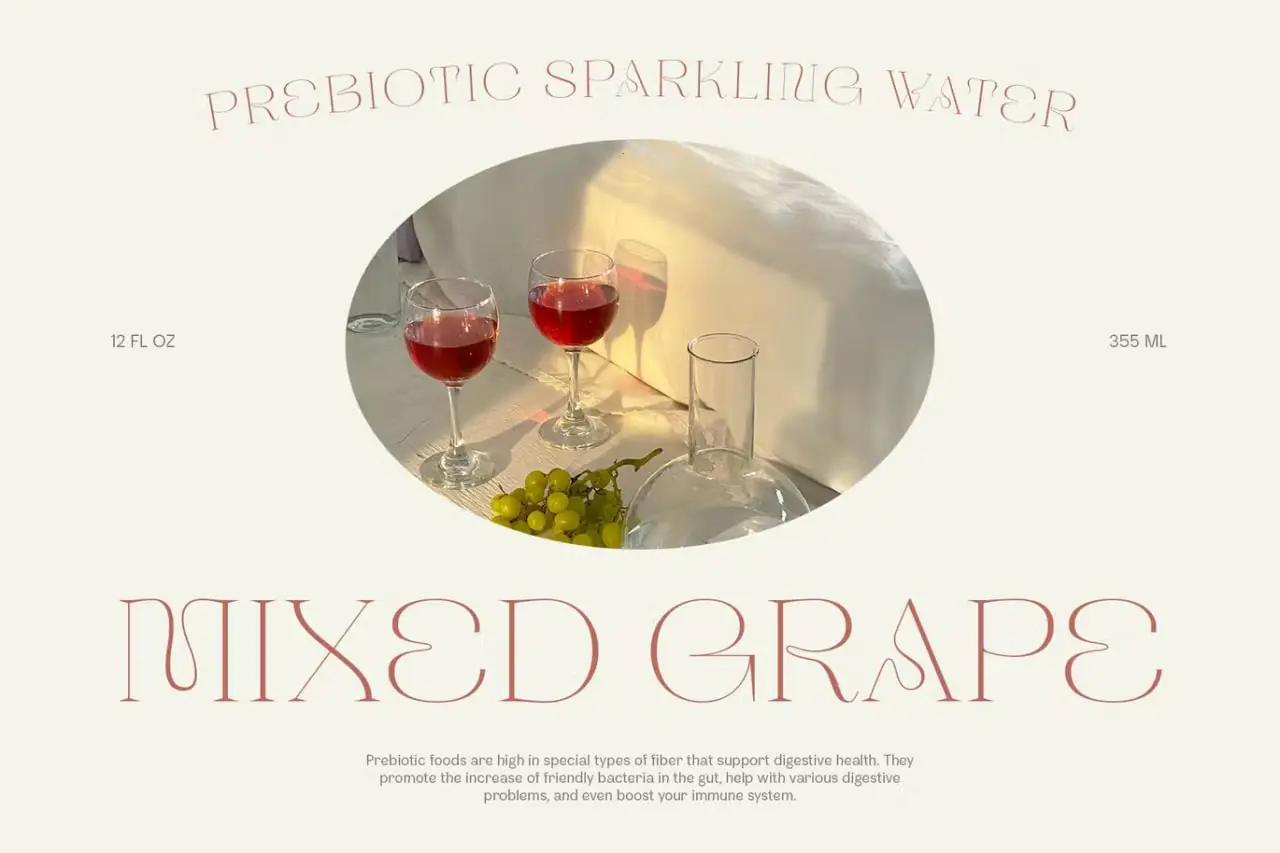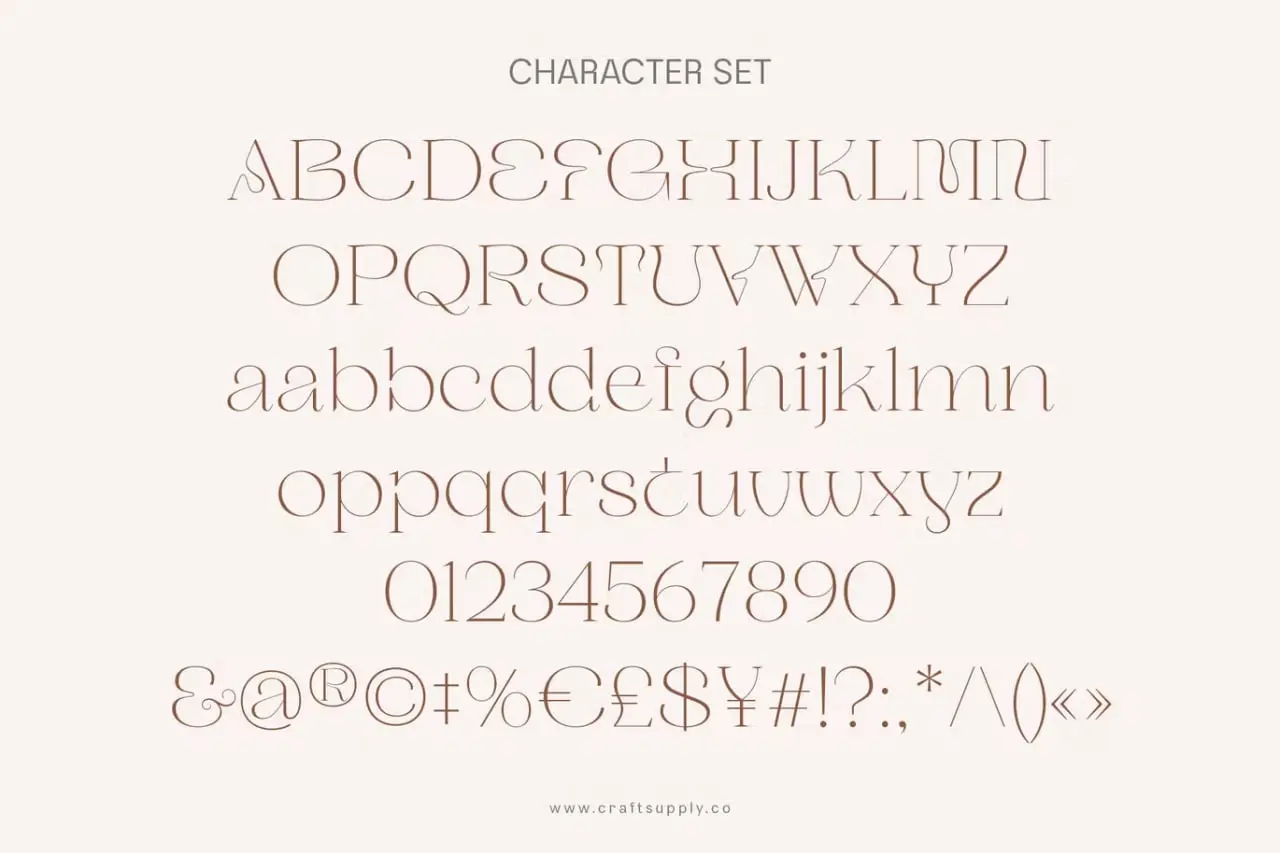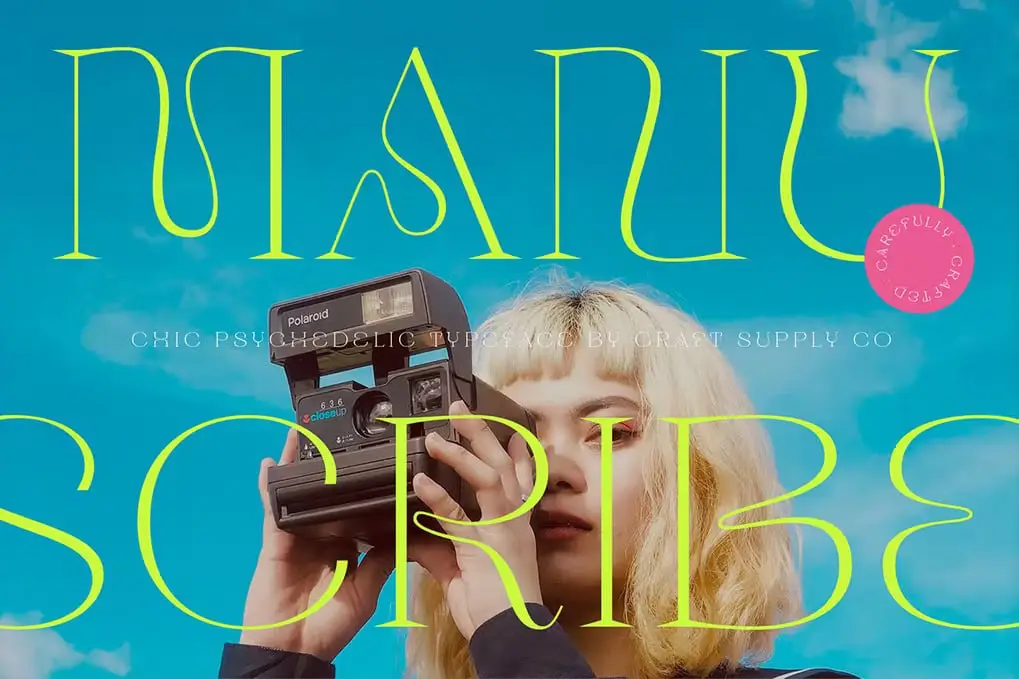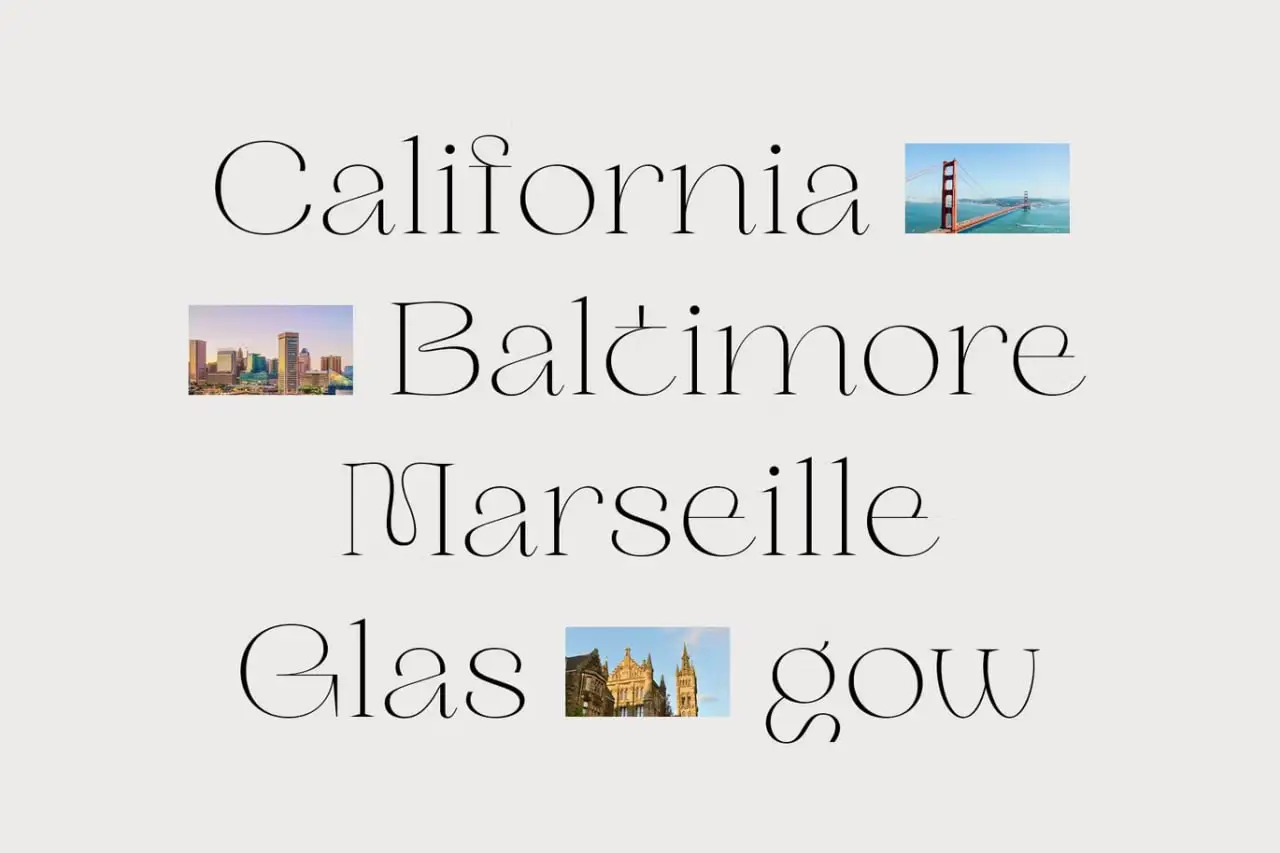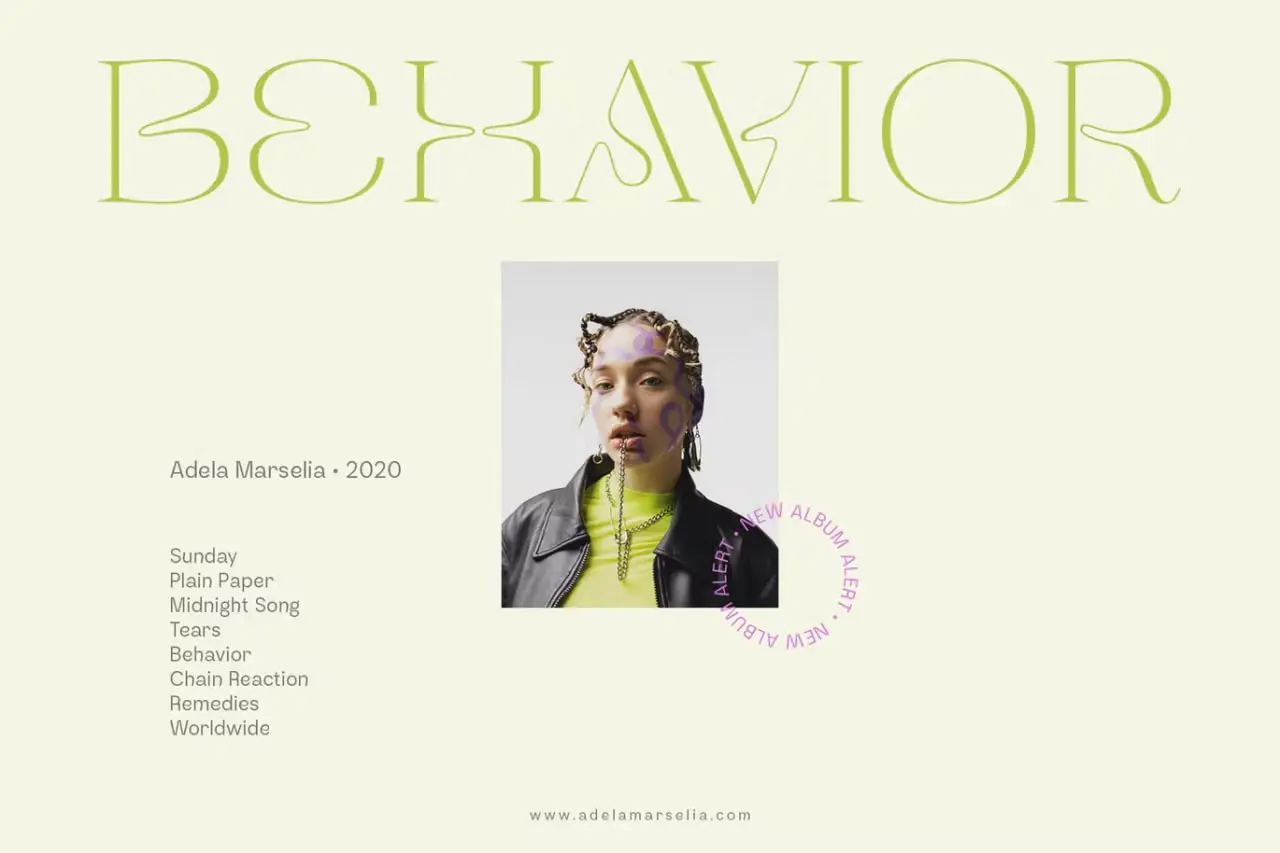
Introducing the Manuscribe-Psychedelic Typeface, a vibrant and expressive font designed to captivate and inspire. This typeface features a unique blend of playful curves and bold lines, making it perfect for creative projects that require a touch of whimsy.
Ideal for branding, logos, posters, and web design, the Manuscribe-Psychedelic Typeface adds a distinctive flair to any project. Use it to create eye-catching headlines or playful text elements that stand out.